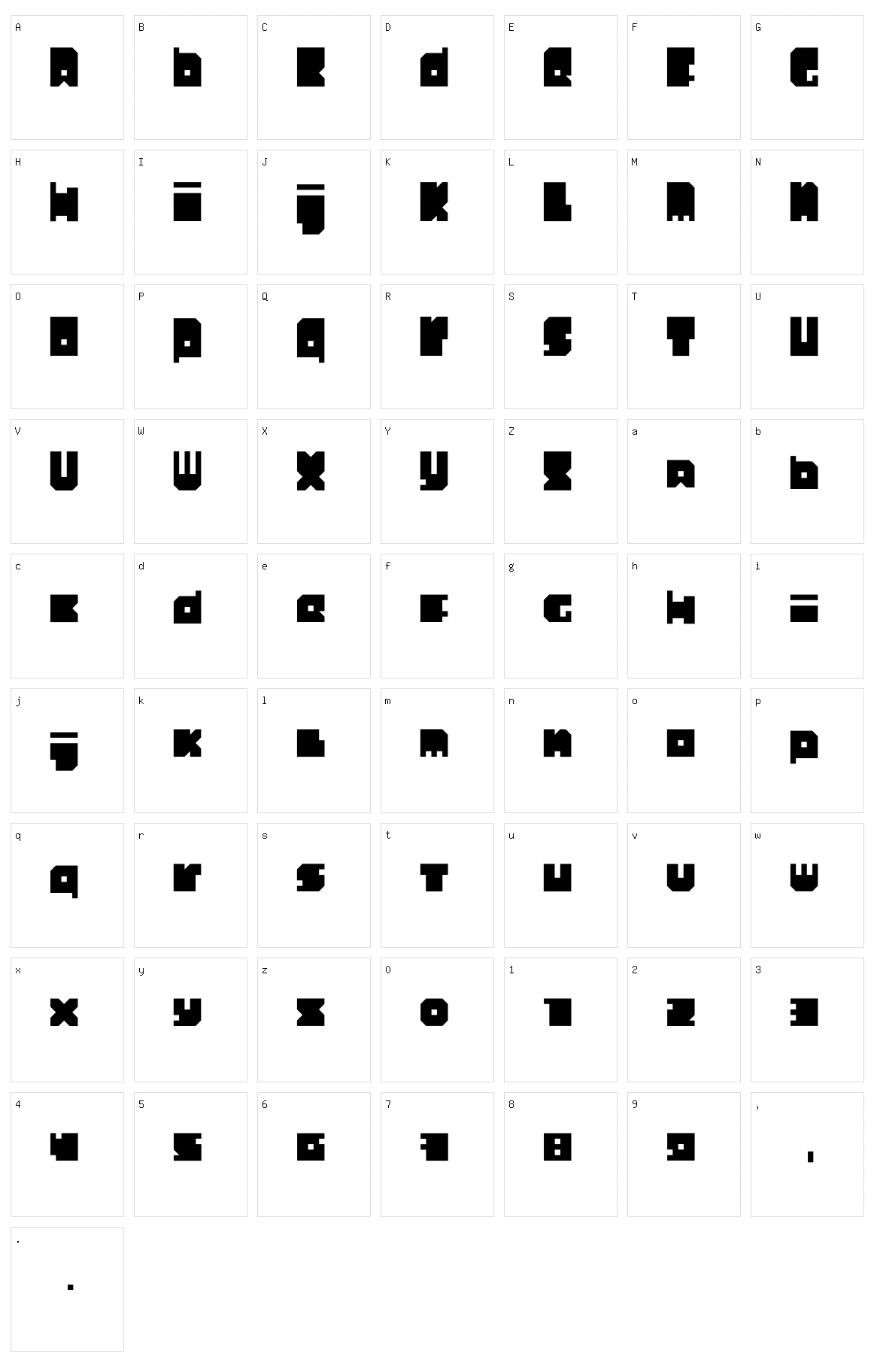
The free font Quadratini is carefully designed by Emilie Rollandin, showcasing a thoughtful balance of creativity and usability and falls under the Square font style. When you download the ZIP file, it contains only 6.89 KB of font files, making it lightweight and quick to download. Please review the license details below to understand permitted usage and distribution rights. If license information is not available, we recommend using this font for personal projects only or contacting the author directly for commercial usage permissions.